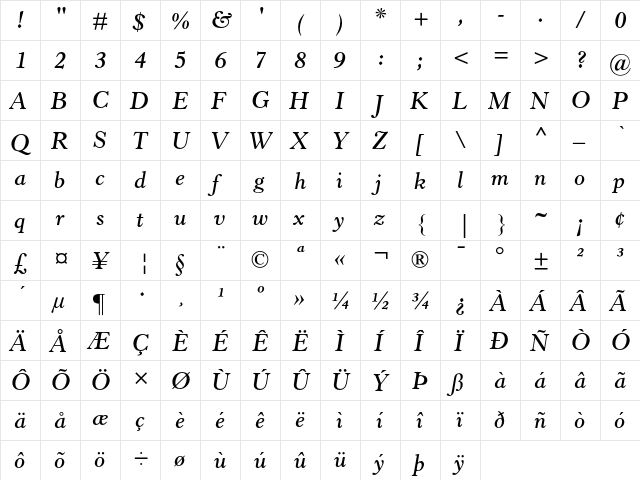
Horley Old Style MT Semibold Italic
Design Context for Horley Old Style MT Typeface
Horley Old Style MT takes a measured approach to typography — its balanced proportions and neutral character make it a reliable workhorse for both digital and print work. The dynamic lean of this cut emphasises speed and emphasis in any layout. Its bold stroke weight gives it real presence on the page.
Pro Tip: Use Horley Old Style MT for emphasis, pull quotes, and subheadings where its slanted energy can add rhythm to the layout.